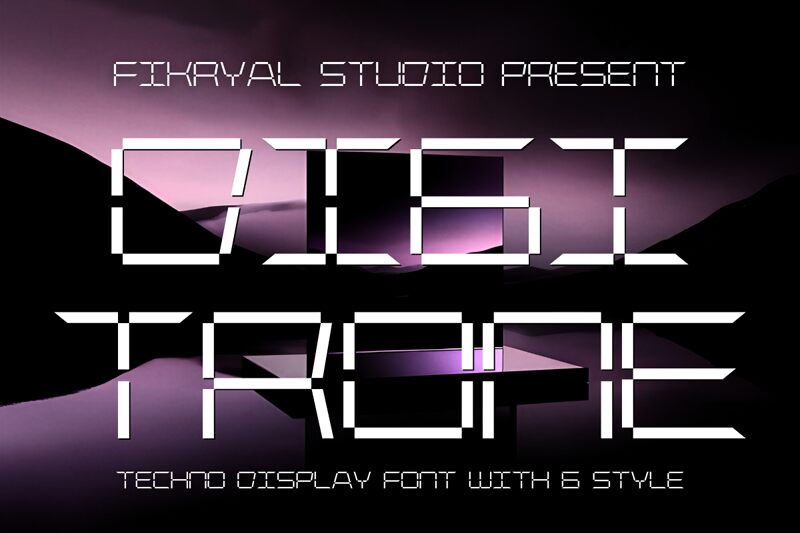
Digitrone Light by Fikryal Studio is a free digital display font modeled on an electronic readout. Its broad, thin letters break into crisp horizontal and vertical strokes with clipped diagonal joins. The generous width gives the lettering a calm, measured pace.
Interface graphics are its most convincing setting, especially timers and futuristic control screens. The same electronic precision suits technology branding, event posters, and music artwork with a retro-digital theme. It will appeal most to designers working with arcade, synth, or science-fiction references.